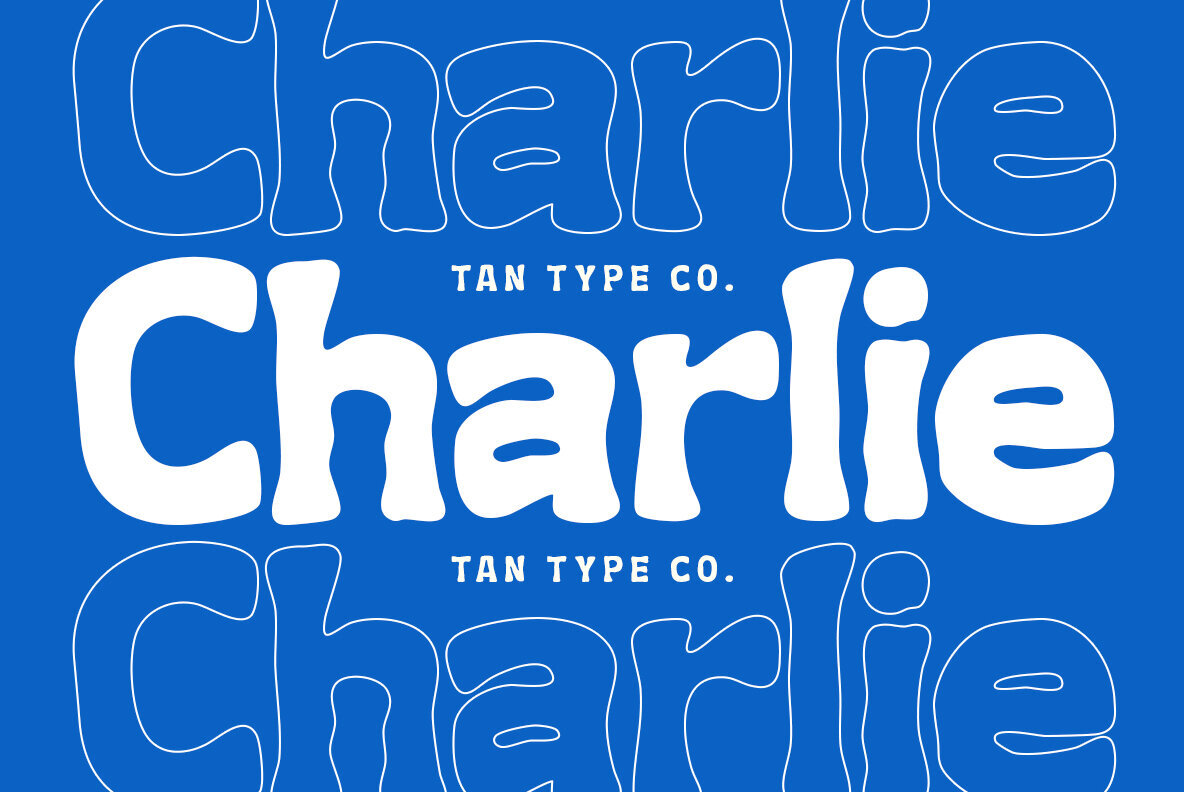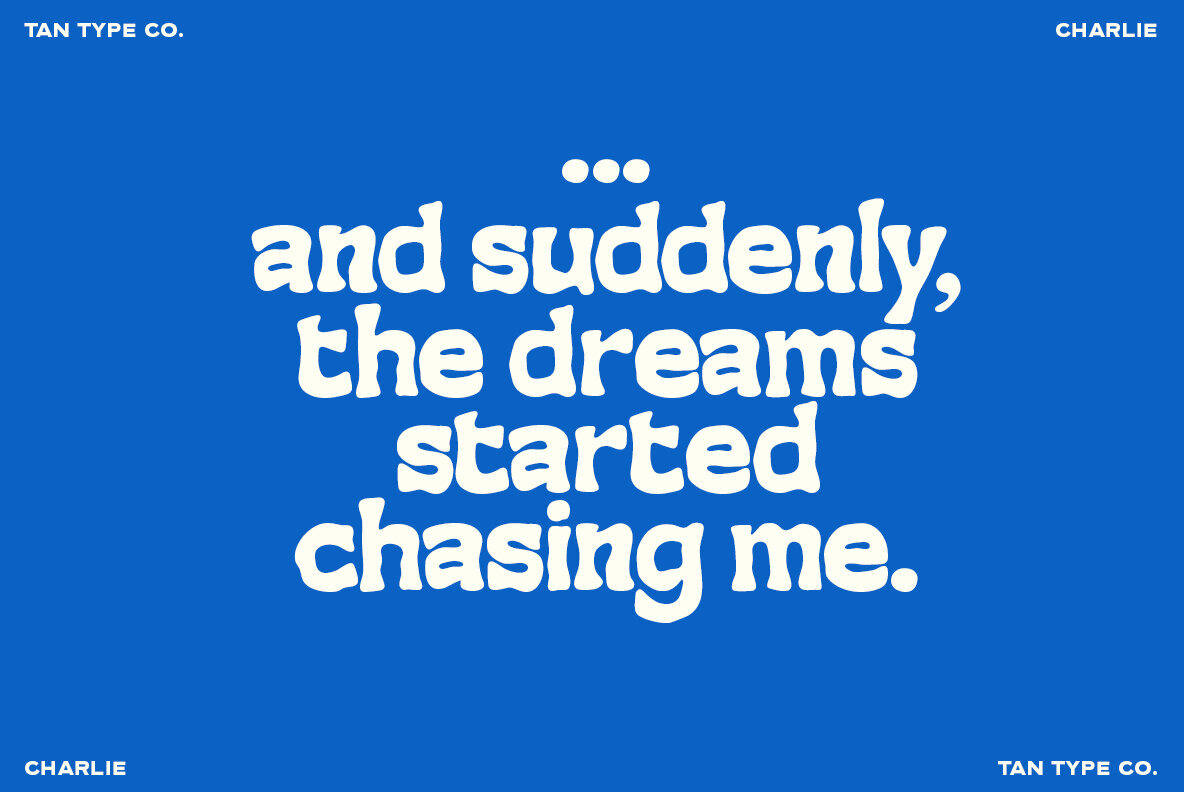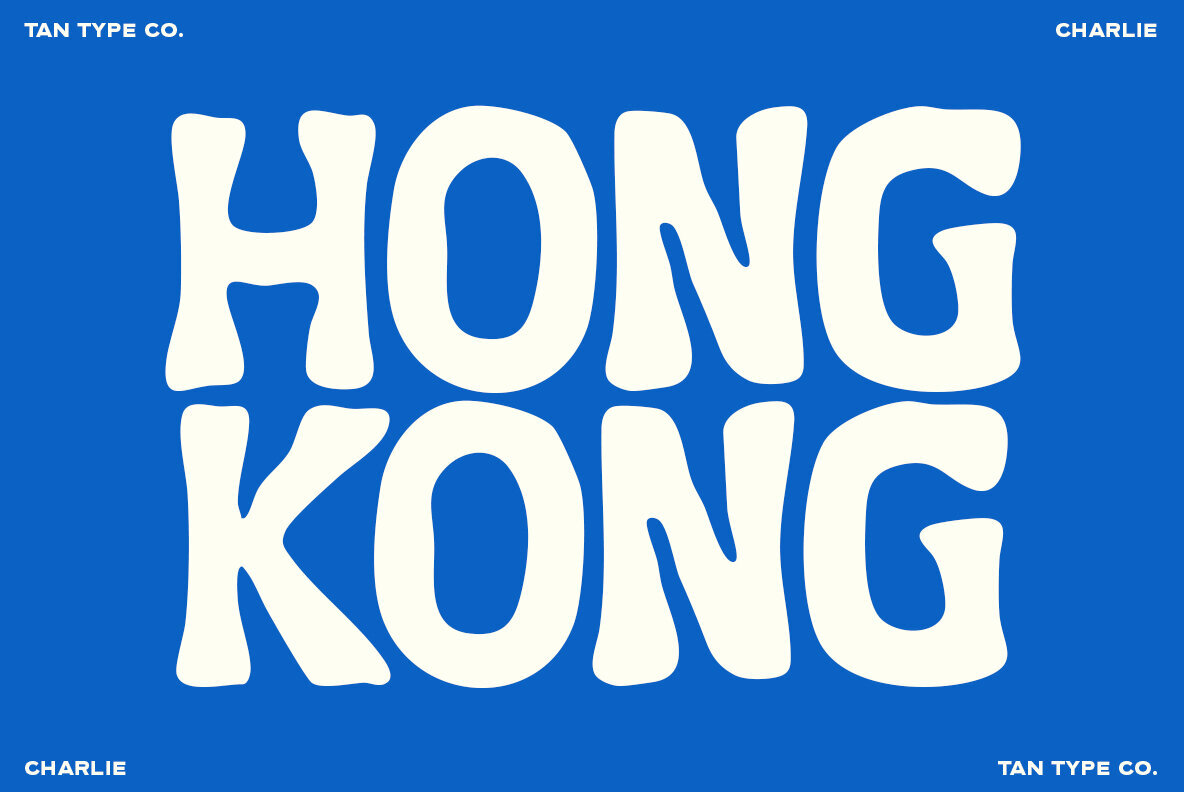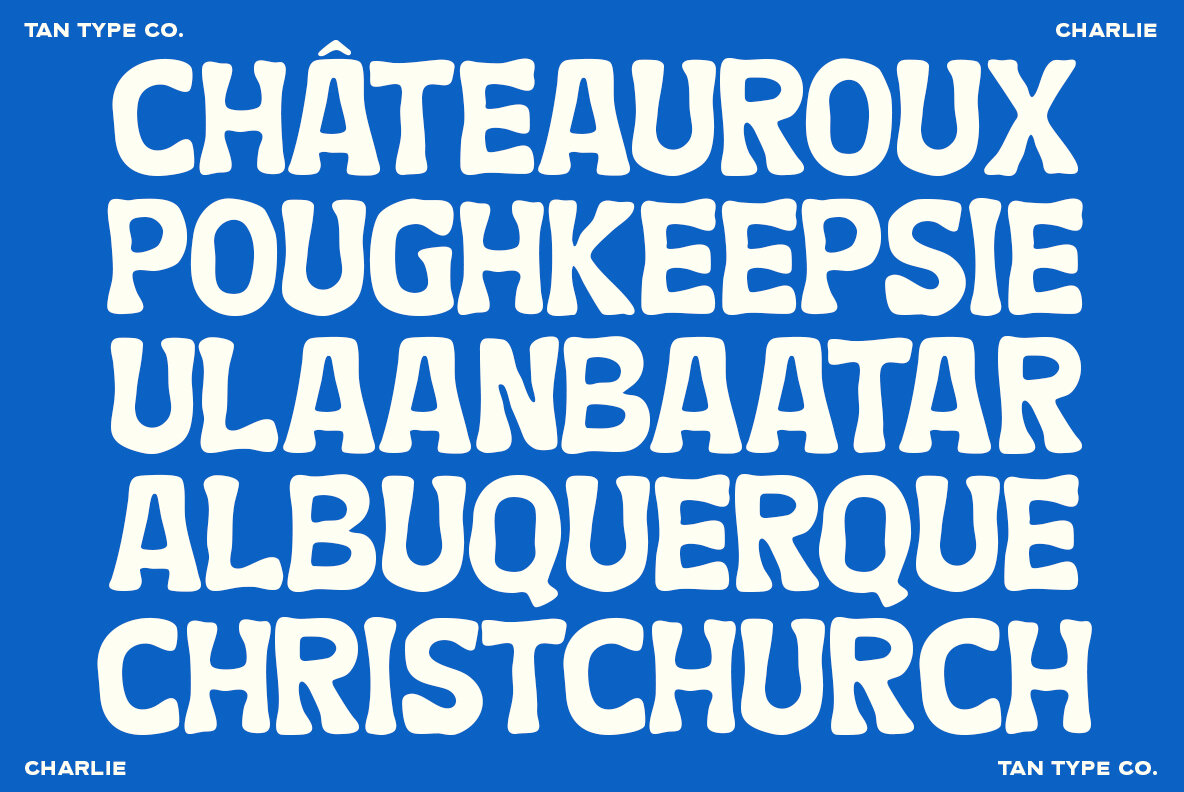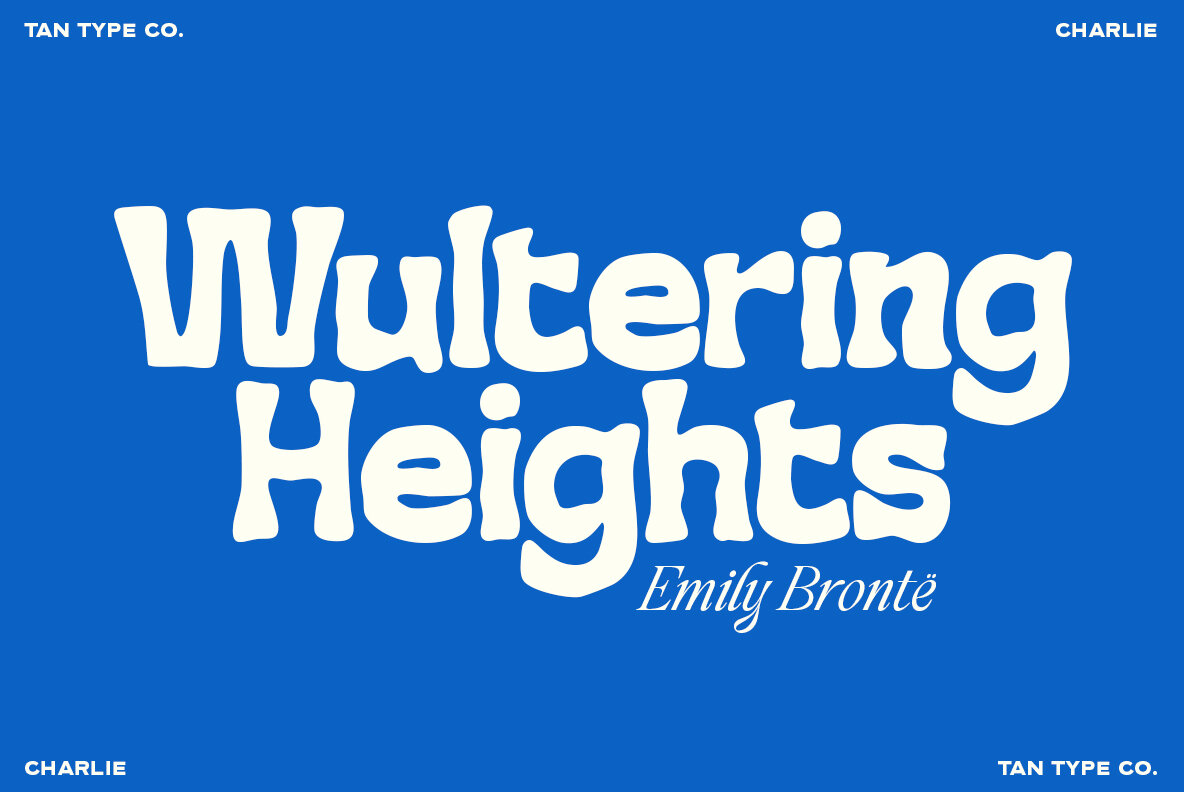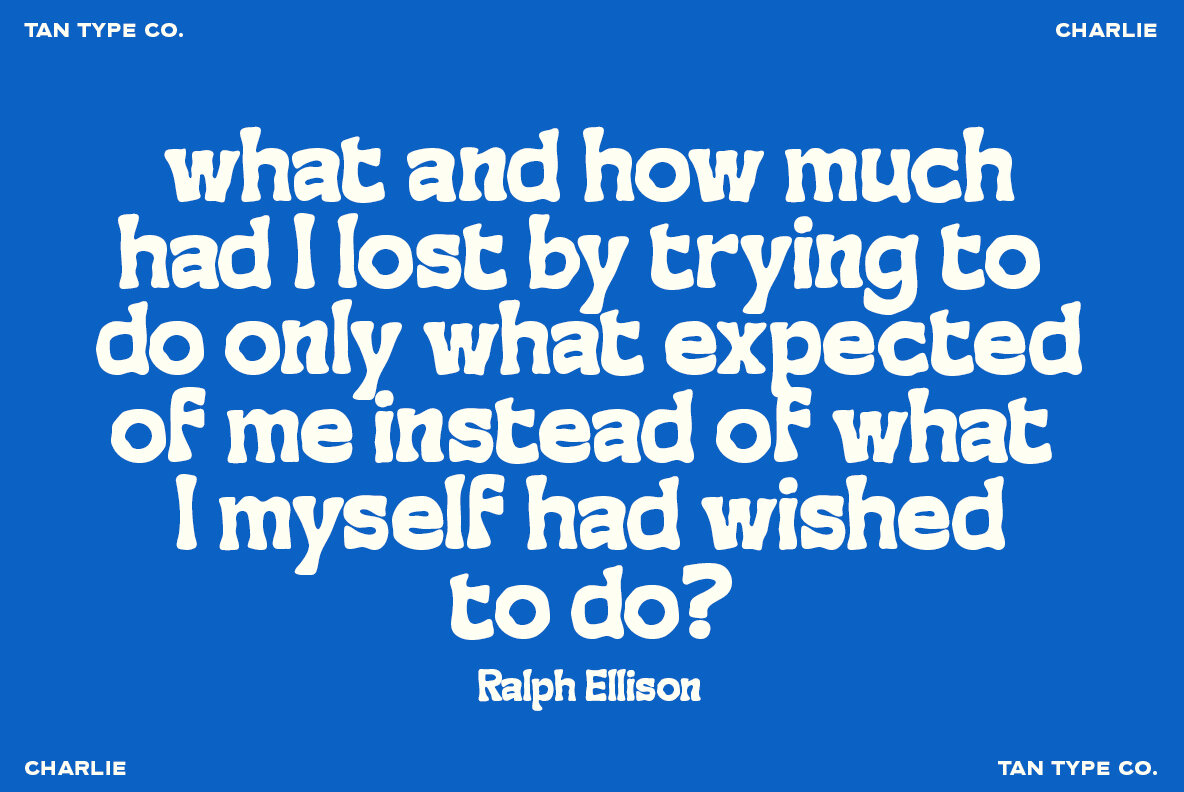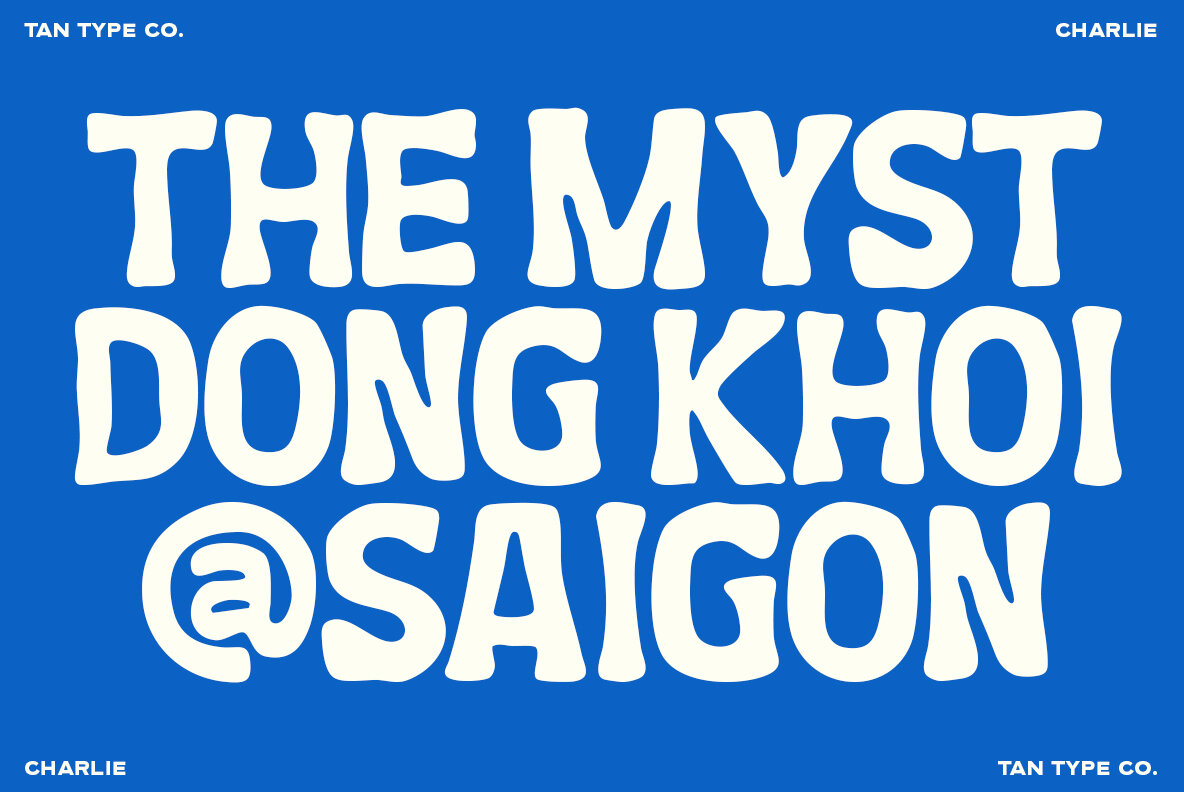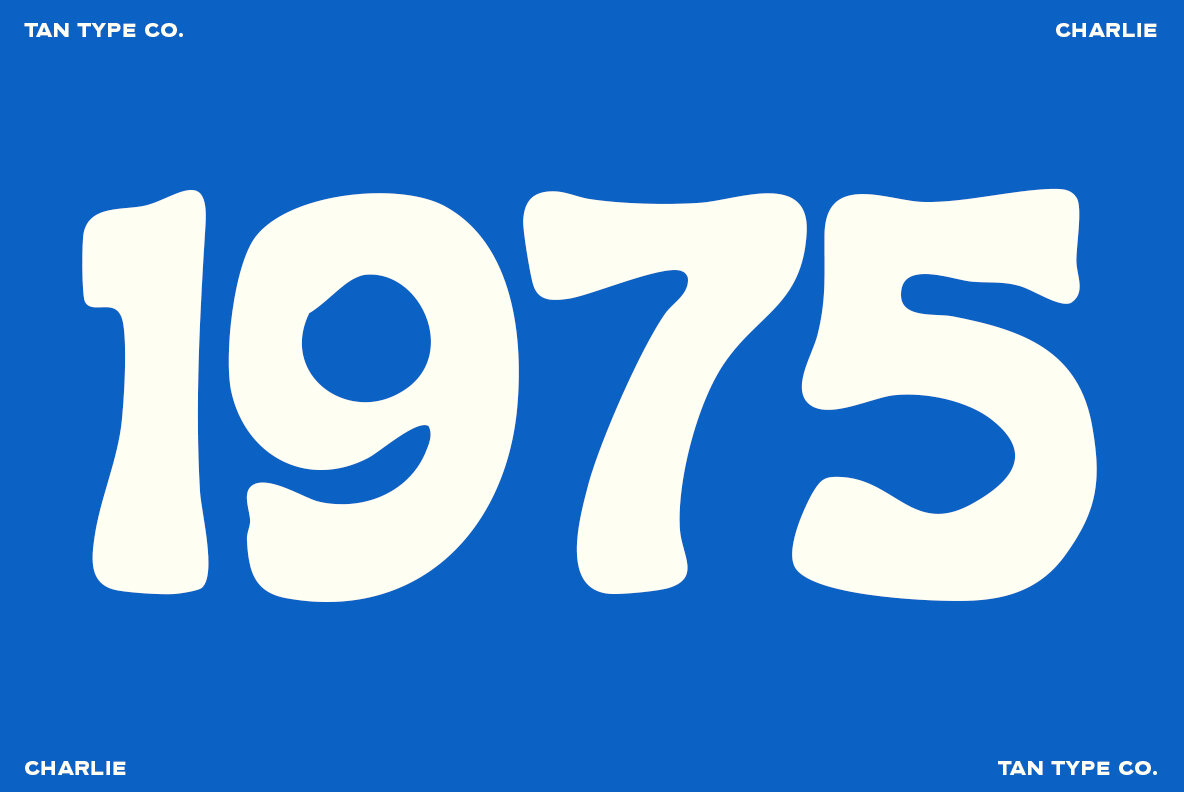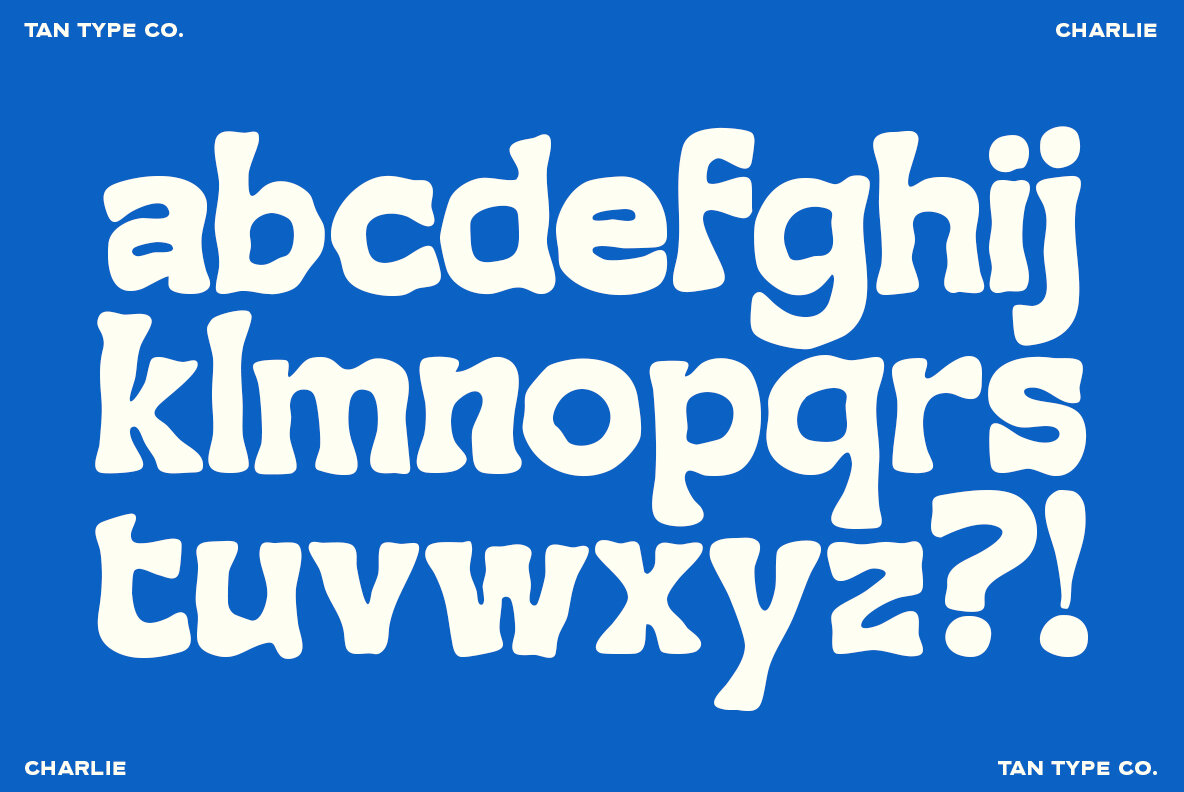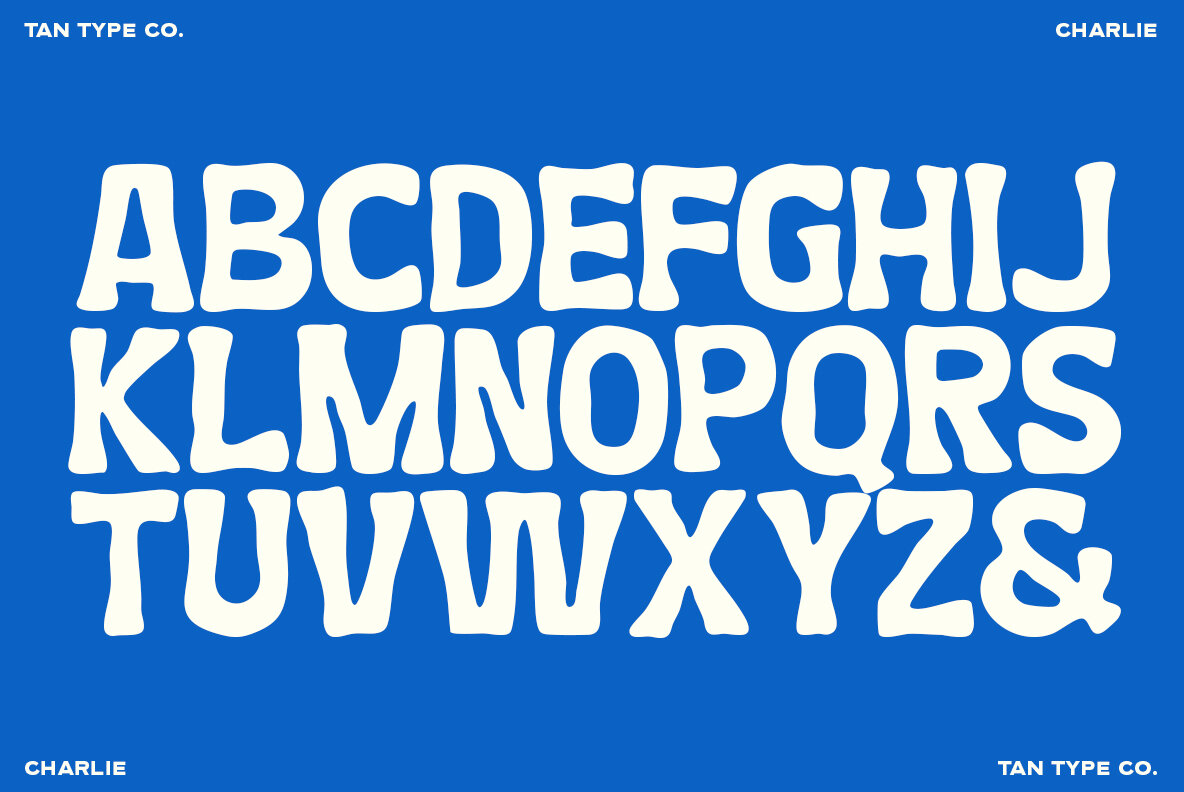
TAN CHARLIE Font
TAN CHARLIE
Meet Charlie, a unique hand-drawn sans serif typeface that captures playful energy with its warm, nostalgic essence. Carefully crafted with gently uneven lines and organic forms, this font exudes a relaxed and human feel, reminiscent of a hand-sketched creation, perfected in its imperfections. Charlie showcases versatility, seamlessly blending retro hints with a fresh personality that suits various design styles—from modern to vintage-inspired projects. Charlie is compatible with most design software, ensuring ease of use across platforms. While it integrates well with Canva, note that advanced OpenType features like special characters have limited support in Canva. Choose Charlie to add character and warmth to your designs.TAN CHARLIE: A Whimsical Hand-Drawn Typeface